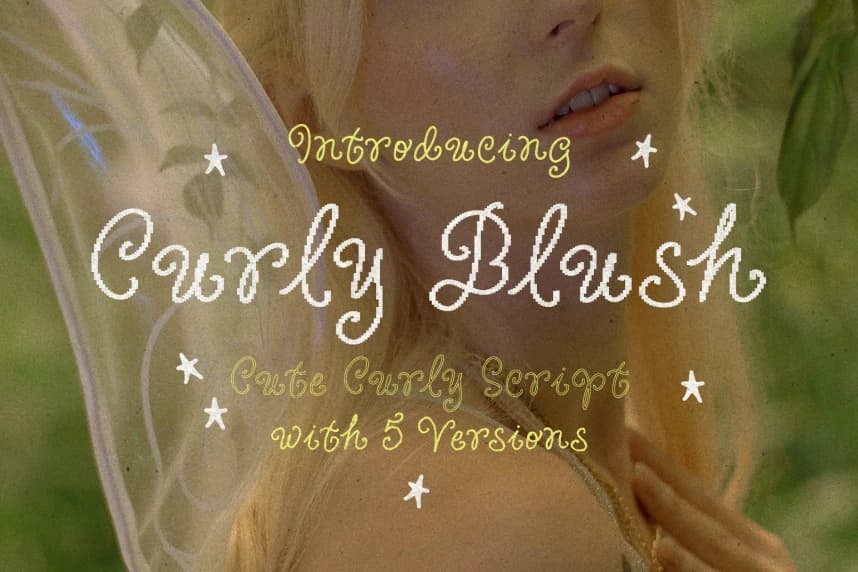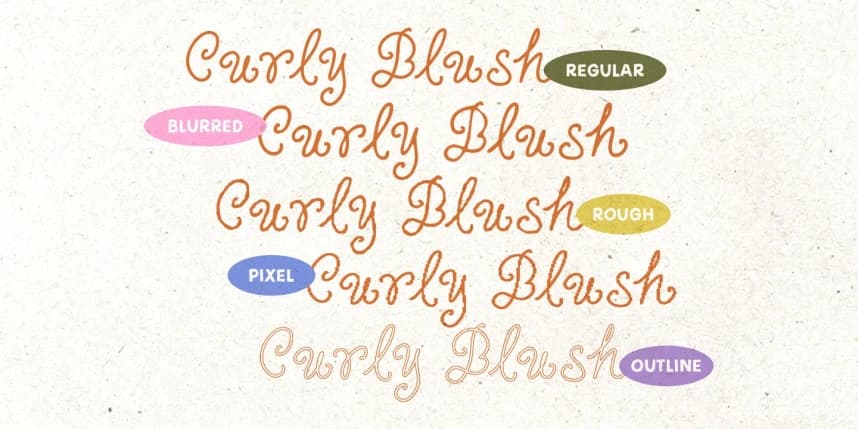
Curly Blush Font
Curly Blush Font swirls in with cute curly strokes and a soft handwritten feel that looks straight out of a dreamy scrapbook. The letters are playful, sweet, and full of tiny magical vibes, making every word feel warm and charming.